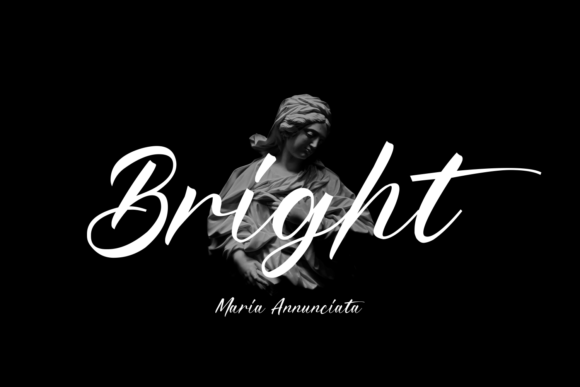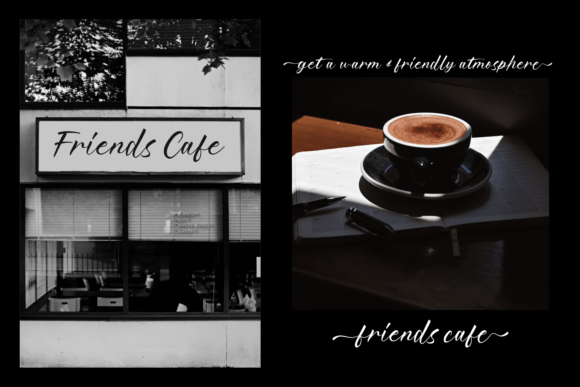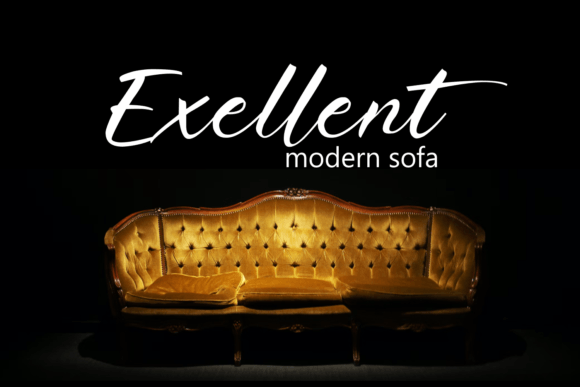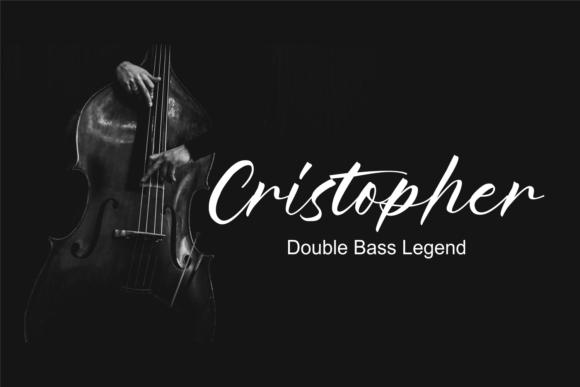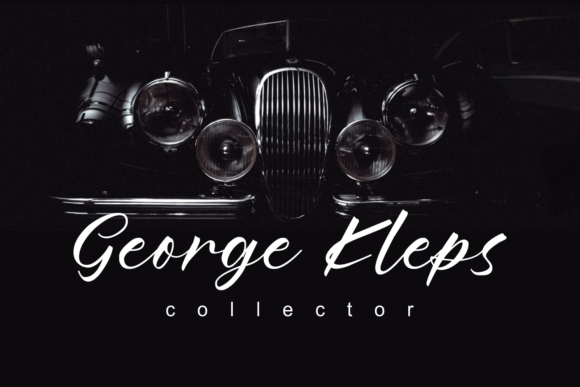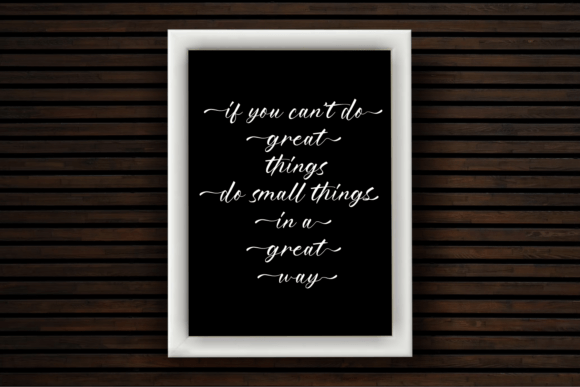
Introduction to Honess Font
Have you ever stared at a blank canvas, searching for the perfect words to bring your creative project to life? The blank page can be daunting, but the right font can be the spark that ignites your imagination. For those seeking a touch of elegance and sophistication, the Honess Font is an ideal design resource. Its luxurious handwritten script style exudes a classic feel that is both refined and approachable.
Whether you’re a craft artist looking to elevate your handmade creations or a graphic designer seeking a unique font for your next project, the Honess Font is an excellent choice. Its versatility makes it suitable for a wide range of applications, from invitations to product labels, and even digital designs with transparent backgrounds.
Key Features of Honess Font
- Features a transparent background for seamless integration with any design
- Includes 1 font style with multiple weights for added versatility
- Designed with high resolution in mind, perfect for print and digital use
- Supports a wide range of languages, making it a great resource for global design projects
Honest Review: Honess Font
I recently had the chance to work with the Honess Font, and I must say it’s been a game-changer for my creative projects. The font’s elegant design and versatility make it an excellent addition to any design resource.
Here are some things that work well with the Honess Font:
- ✨ High-quality design that adds a touch of sophistication to any project.
- ✨ Easy to use and customize, making it perfect for designers of all levels.
- ✨ Transparent background, allowing for seamless integration with other design elements.
While the Honess Font is an excellent resource, there are a few limitations to consider:
- ⚠️ Limited character set, which may not be suitable for large-scale projects.
- ⚠️ Some users may find the font’s style a bit too minimalist, which may not appeal to everyone.
Overall, I’m thoroughly impressed with the Honess Font. Its high-quality design, ease of use, and free download make it an excellent addition to any design resource. While it may have some limitations, I believe it’s well worth the investment for any serious designer.
Tips for Getting the Most Out of the Honess Font
Use the Honess Font on a transparent background to create a clean and minimalist design. You can also combine it with other fonts to create a unique and eye-catching look. Experiment with different font sizes and styles to get the most out of this high-quality design resource.
Common Use Cases for the Honess Font
The Honess Font is suitable for a wide range of creative projects, including business cards, brochures, and websites. Its high-quality design and transparent background make it an ideal choice for presentations and documents that require a professional look.
Alternatives to Honess Font
The Great Vibes Font is a high-quality, elegant script font that’s perfect for creative projects requiring a touch of sophistication. It’s ideal for wedding invitations, luxury brand designs, and other high-end design resources. Great Vibes Font is a free download that can be used for personal and commercial projects, making it an excellent alternative to Honess Font.
Compared to Honess Font, Great Vibes Font offers a more refined and delicate look, making it suitable for designs requiring a high level of elegance. Its transparent background and smooth lines make it easy to use with any design resource.
How do I install the Honess Font on my computer?
Can I customize the Honess Font to suit my design needs?
Yes, the Honess Font is highly customizable, allowing you to adjust its size, color, and style to fit your design requirements. You can also use font editors or software to modify the font’s characteristics, such as adding a transparent background or creating a custom font variation. However, be aware that modifying the font may affect its compatibility with certain design software.